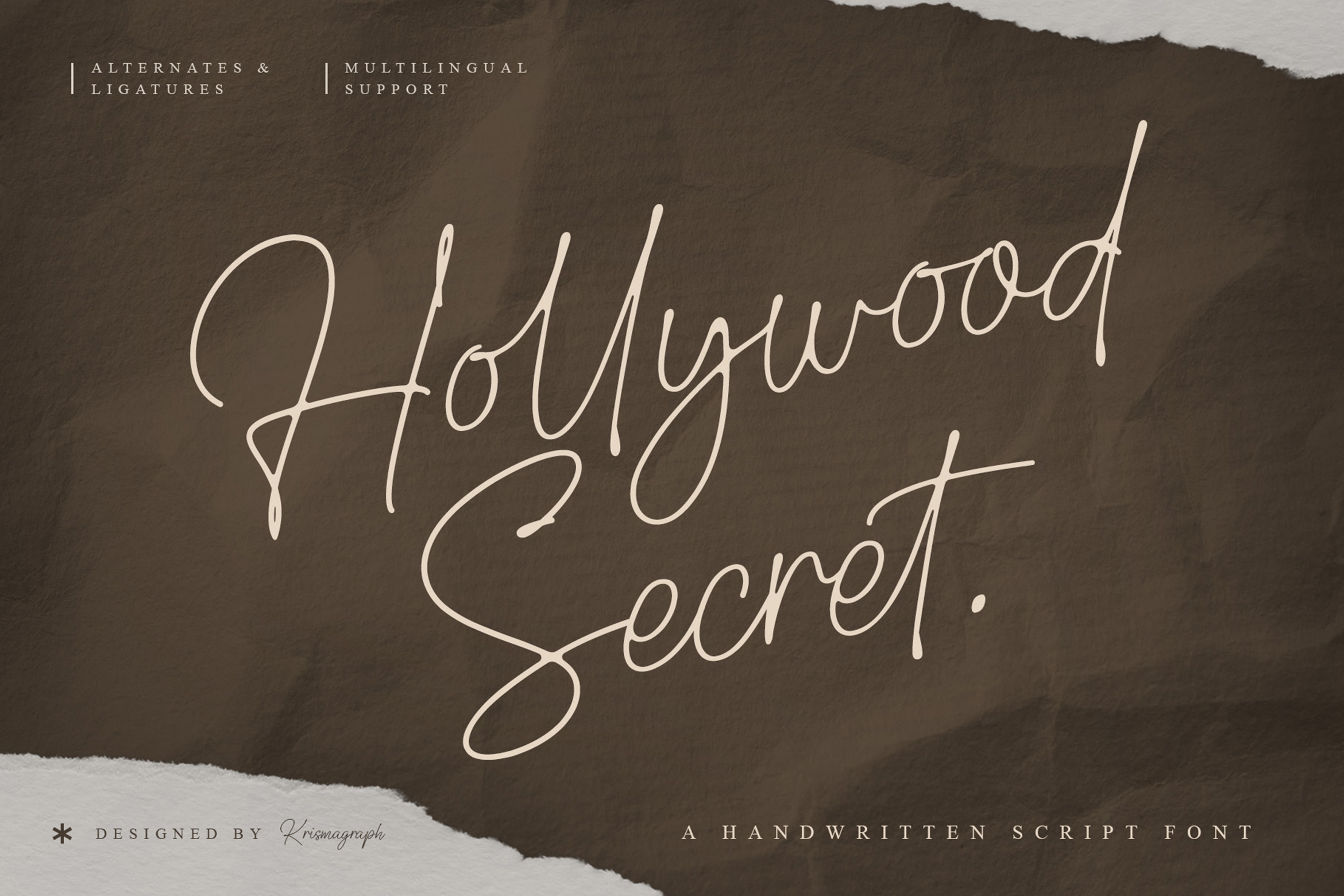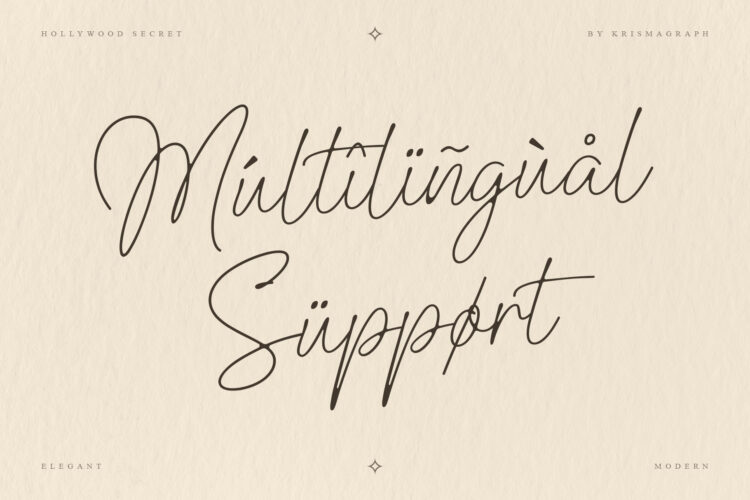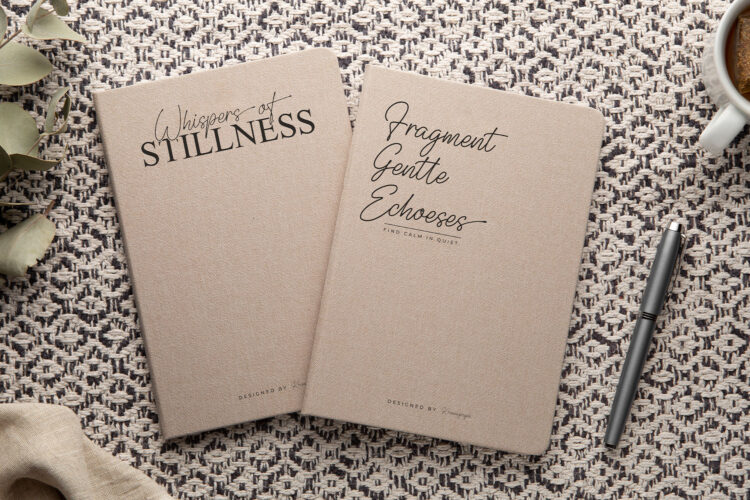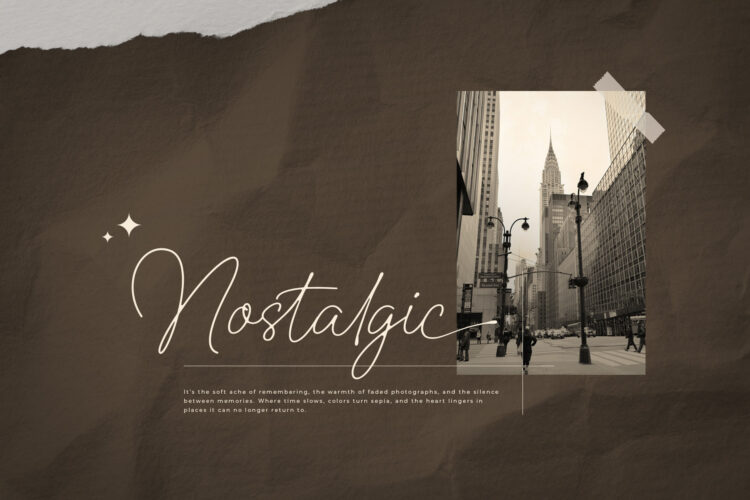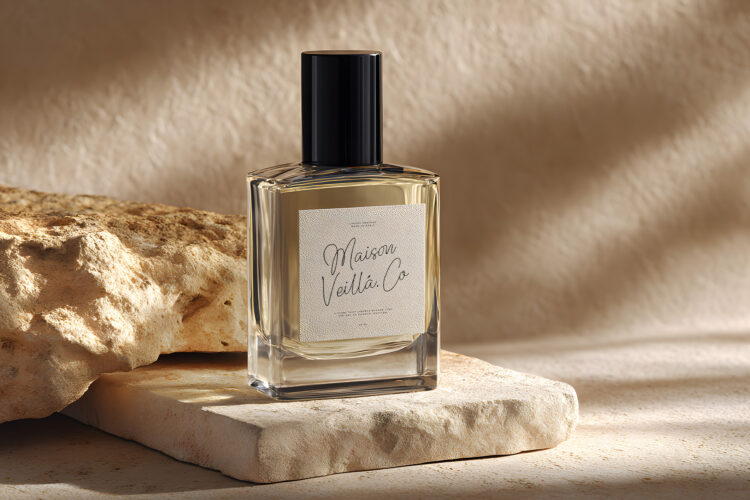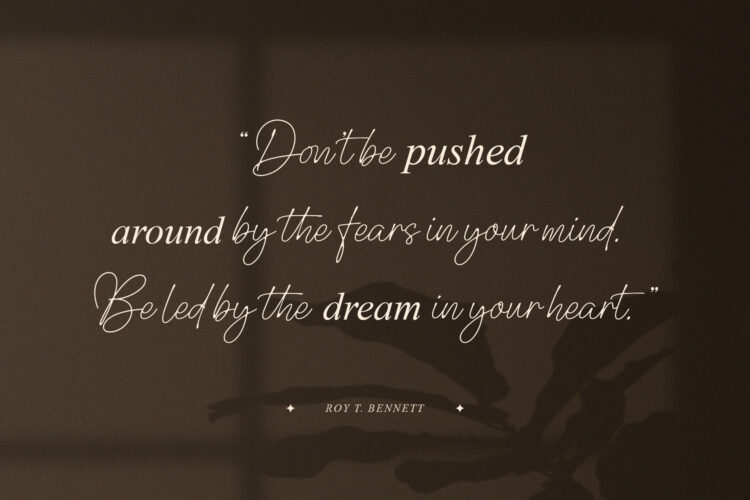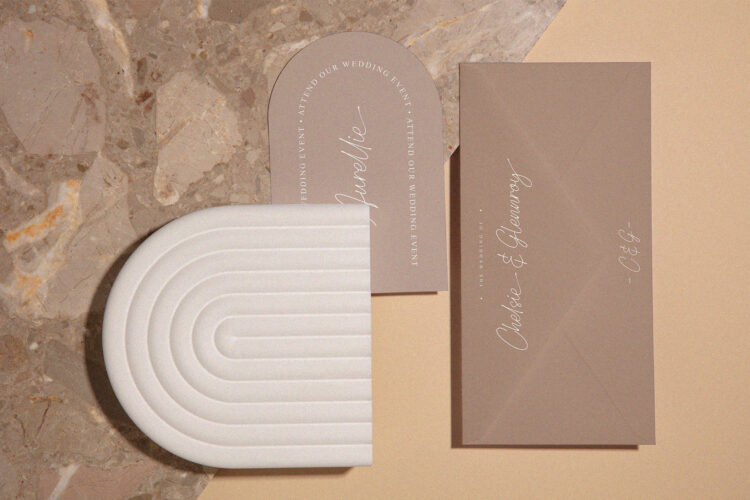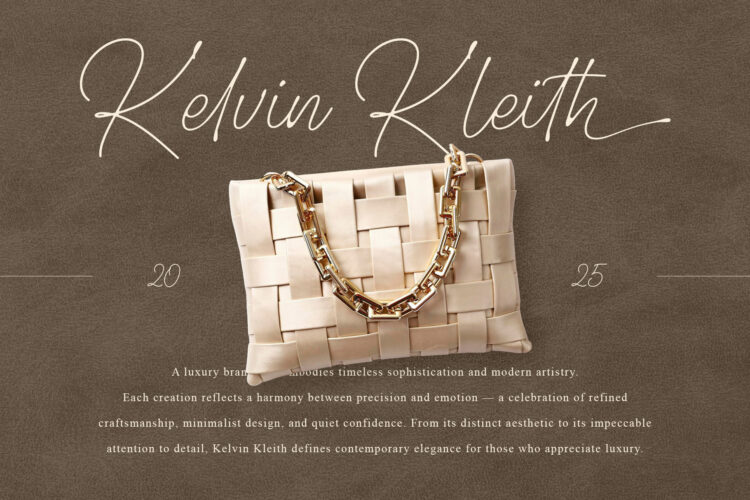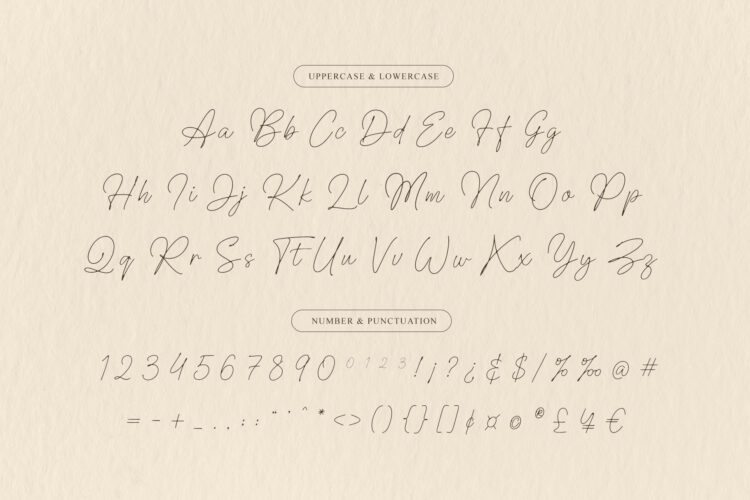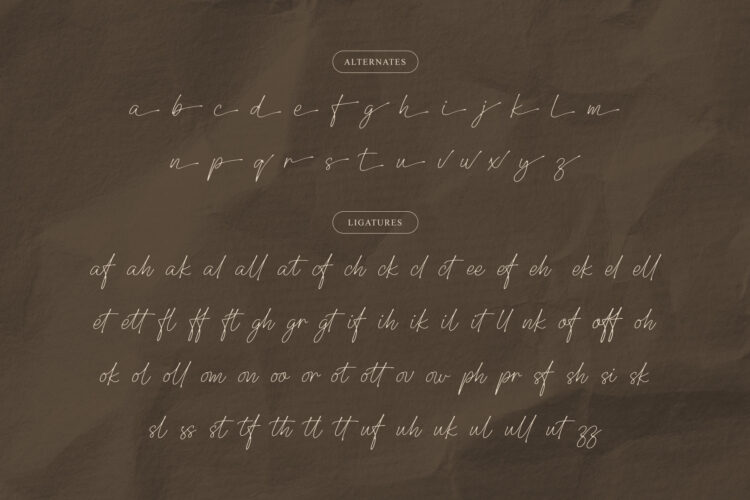
Hollywood Secret is a handwritten script font inspired by natural pen strokes and effortless charm. With its smooth, organic flow and authentic handwriting style, it brings a warm and personal touch to any design — ideal for branding, packaging, photography logos, stationery, and creative quotes.
This typeface includes alternates & ligatures for realistic letter combinations and multilingual support for international versatility. Hollywood Secret is the perfect choice for those seeking a relaxed yet refined handwritten aesthetic.
– Numbers, fractions
– Punctuation and symbols
– Alternates
– Ligatures
– Multilingual support
Hollywood Secret – Natural Handwritten